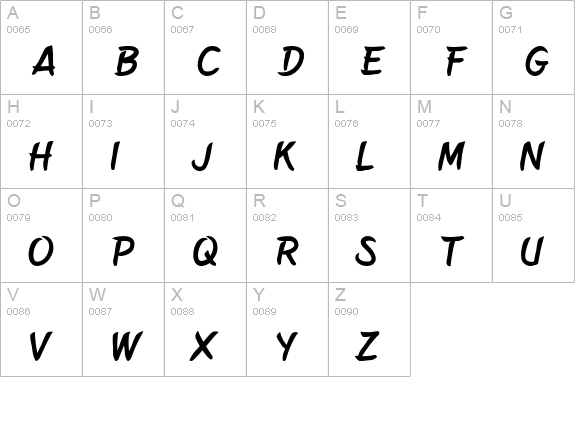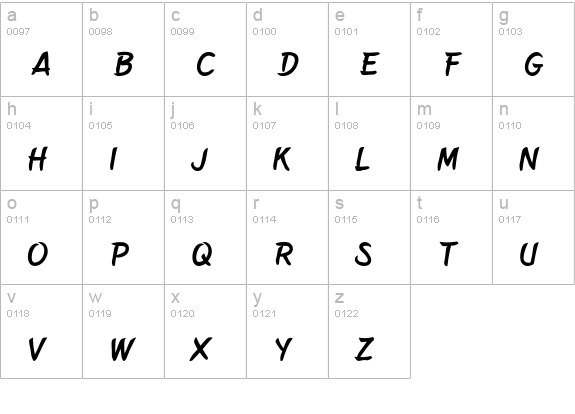
Belepotan Italic is a distinctive, italic variant in the Belepotan typeface family \xE2\x80\x94 well suited to design and typography projects.
Belepotan Italic is a stunning and elegant font that exudes sophistication and style. With its sleek and flowing curves, it adds a touch of class to any design project. Whether you're creating a logo, designing a website, or crafting a beautiful invitation, Belepotan Italic will elevate your work to new heights. What sets Belepotan Italic apart is not only its exquisite design but also its availability as a free font. That's right, you read it correctly - Belepotan Italic is freely available to download at FontsMarket.com. This means that you can access this striking font without any cost, allowing you to bring your creative visions to life without breaking the bank. The versatility of Belepotan Italic is another reason why it has become a favorite among designers. It seamlessly blends with various design styles, whether you're going for a modern and minimalistic look or a more ornate and decorative aesthetic. Its italicized form adds a touch of elegance and uniqueness, making it perfect for headlines, quotes, and other attention-grabbing elements. Belepotan Italic is designed with utmost precision and attention to detail, ensuring that each character is flawlessly crafted. The smooth and even strokes create a harmonious balance between legibility and artistic flair, making it both visually appealing and highly readable. Whether you're a professional designer or a hobbyist, Belepotan Italic is a must-have in your font collection. Its ability to transform any design into a work of art, coupled with its availability as a free download at FontsMarket.com, makes it an unbeatable choice. So why wait? Discover the beauty and elegance of Belepotan Italic today and let your creativity soar.